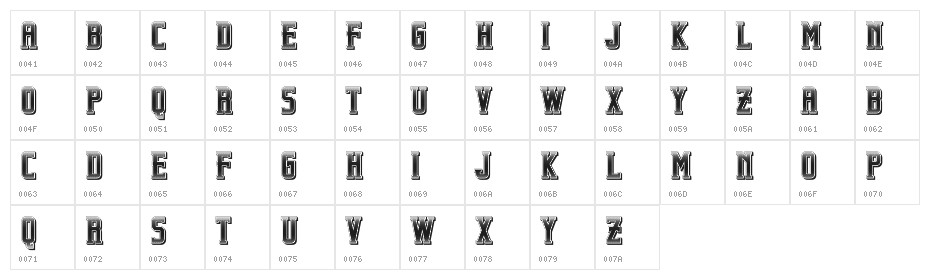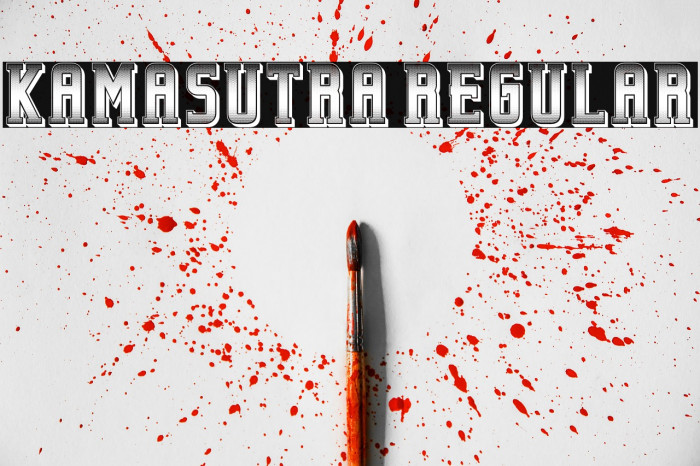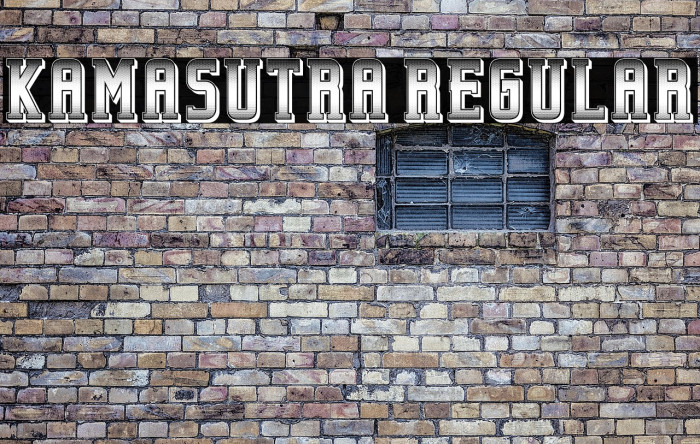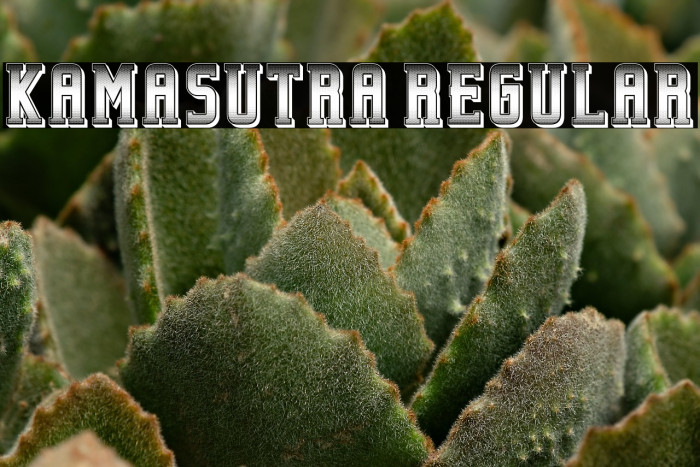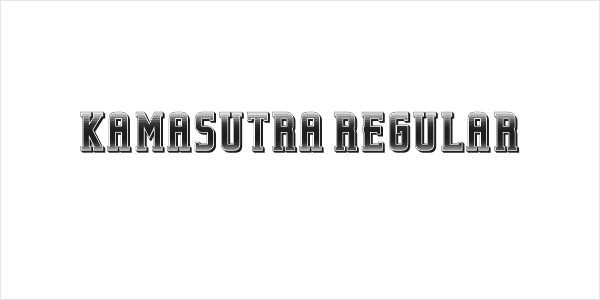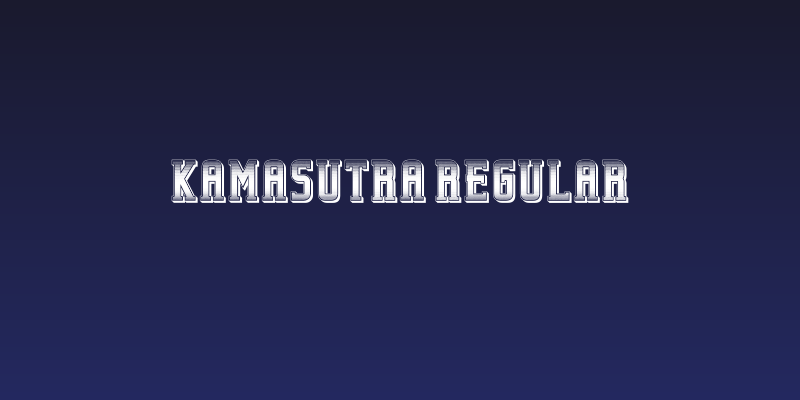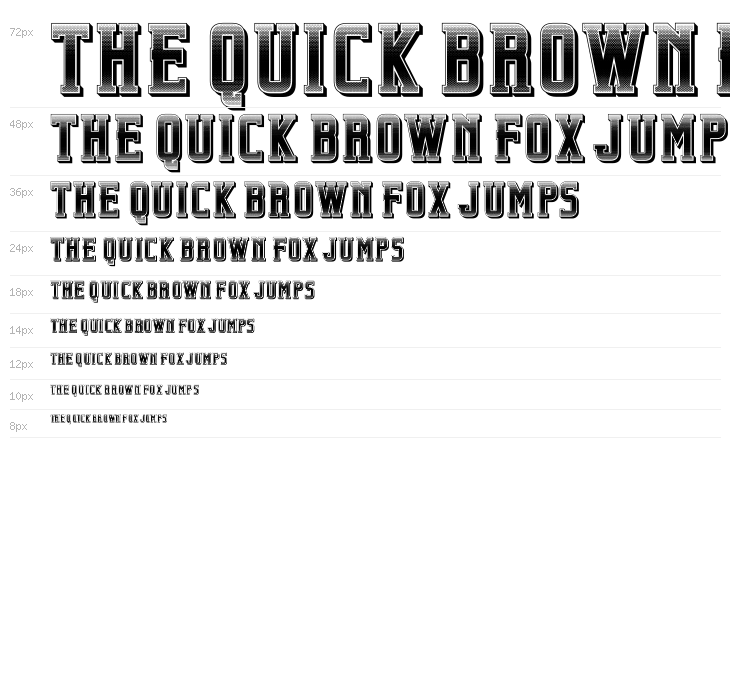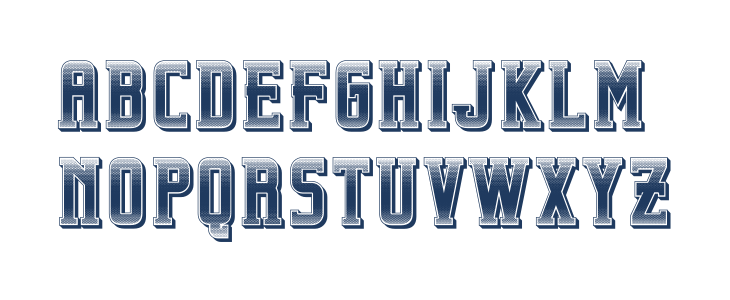
Kamasutra Regular Font
Kamasutra Regular Description
This font features a bold and decorative style with a three-dimensional effect that gives each character a sense of depth and texture. The uppercase letters are designed with a strong, block-like structure, enhanced by intricate shading and highlights that create a vintage, engraved appearance. The font's intricate detailing and shadowing make it stand out, ideal for creating eye-catching designs. The characters are evenly spaced, providing a balanced and harmonious look. The overall style is reminiscent of classic signage or vintage posters, making it suitable for projects that require a touch of nostalgia and elegance.
| Proposed Projects | Ideal for vintage-themed posters, signage, branding, and any project that requires a bold, eye-catching typeface. |